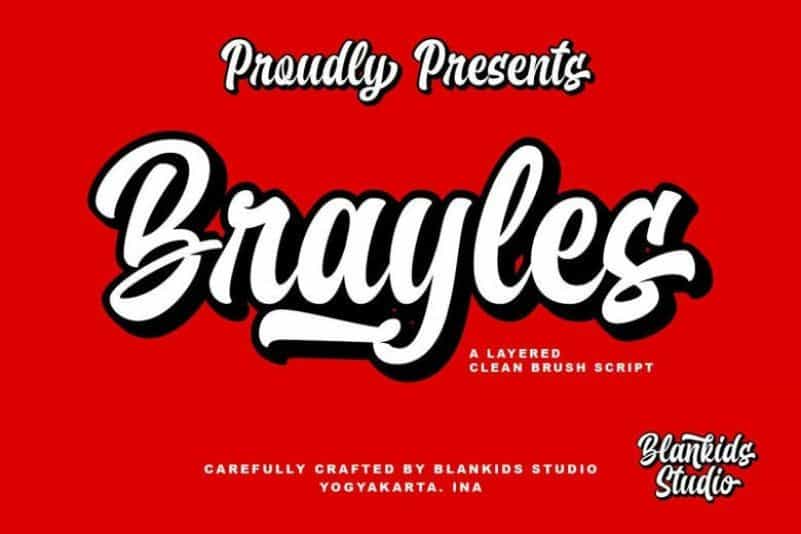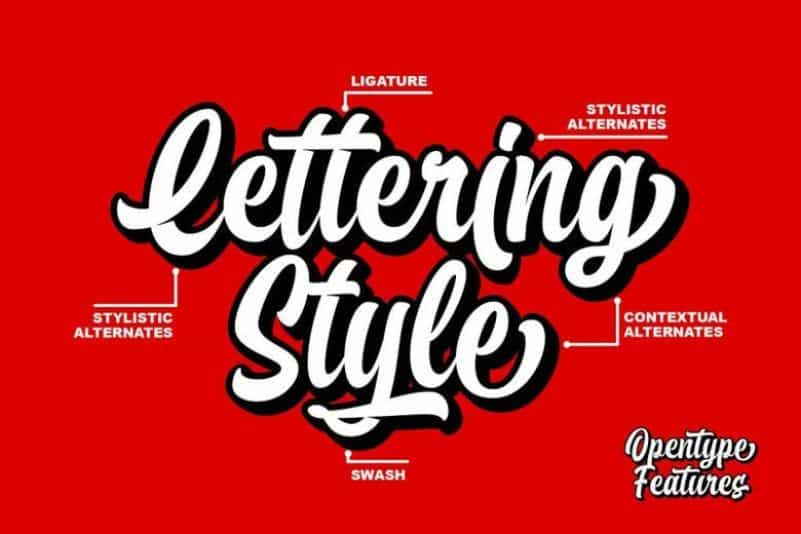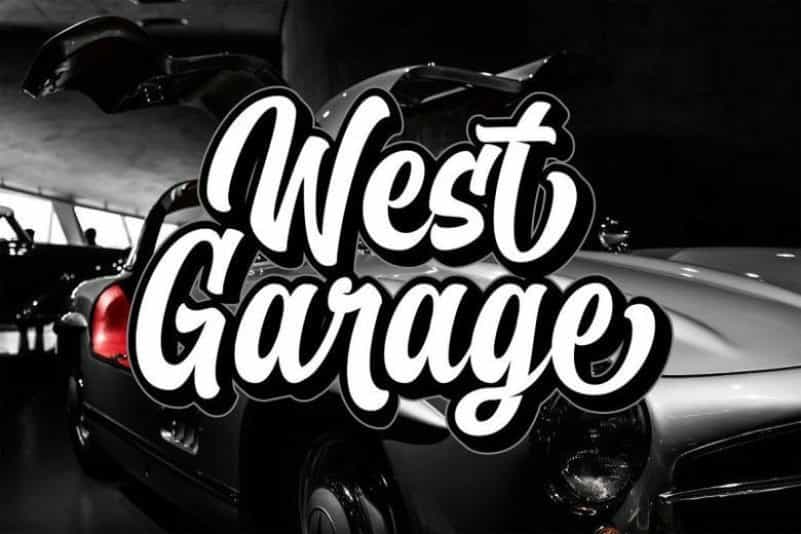
Introducing Brayles Font!It is manufactured and distributed by Blankids Studio. Brayles was created on the basis of handlettering, bold script logotype, and kids font. Brayles are equipped with open type features such as stylistic alternates, contextual alternates, swash, ligatures which are good for logotype, poster, badge, book cover, tshirt design, packaging and any other project you can think of.